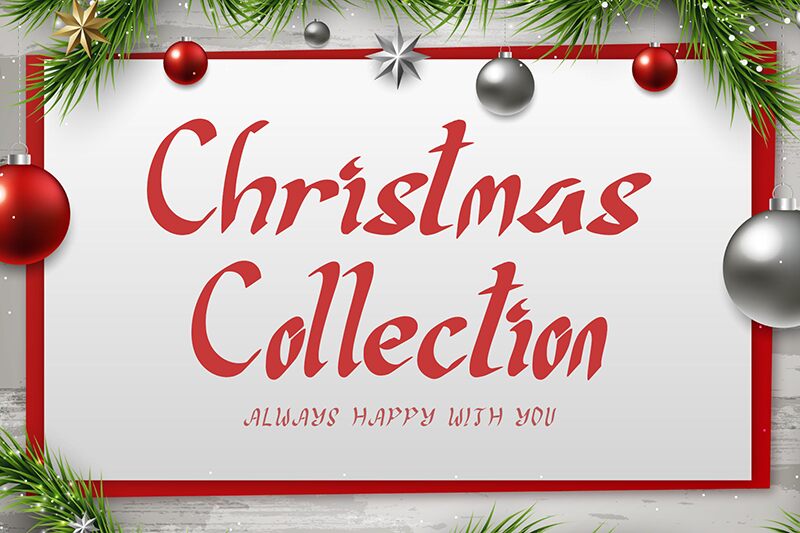
Christmas Collection
Christmas Collection handwritten script font, by Yoga Letter, is all about festive designs. The font is perfect for seasonal cards and invites as well as for Christmas ornaments, t-shirts, and accessories designs. It can be used for a variety of projects but it will always radiate that festive feeling. The font is free for commercial use.
This font will also make a wonderful addition to personal projects, and can be used for handwritten lyrics designs, logos, headers, quotes, etc. Christmas collection script font looks beautiful in big print, so make sure to check out the font in action and give it a try.